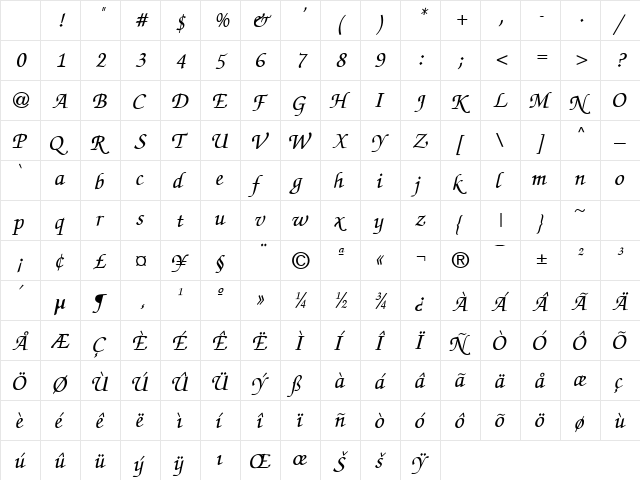
Complete Zap-Chancery Normal glyph index. Displaying only characters natively supported by Zap-Chancery Normal font.
Zap-Chancery is a composed and adaptable typeface that performs quietly and consistently across a wide range of design contexts.